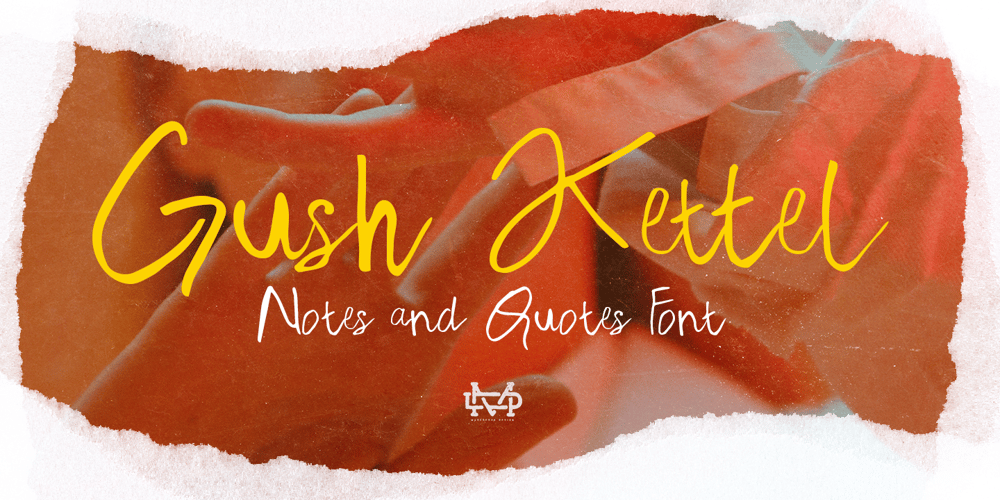
Gush Kettel AT
Gush Kettel AT font
Gush Kettel AT Font Family was designed by madededuk and published by madeDeduk. Gush Kettel AT contains 2 styles and family package options. Gush Kettle is a distinct note font made manually with a pen contains 50+ ligatures with two alternative. Gush Kettle is great for branding, posters, logos, invitation, writing and headings.Feature Uppercase & Lowercase Number & Symbol International Glyphs Multilingual support Alternative Ligature Thanks so much for checking out my shop and feel free to drop us a message any time and follow my shop for upcoming updates